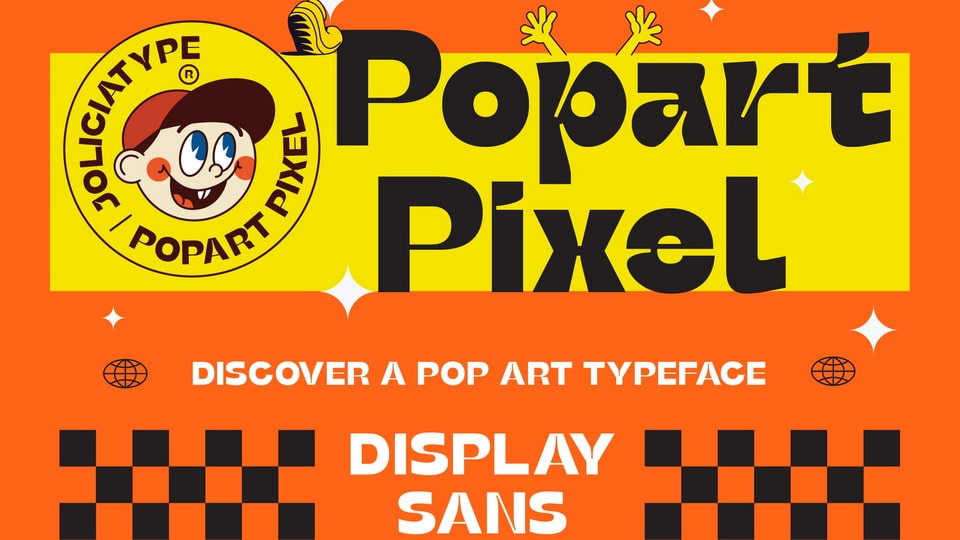
Download Popart Pixel font, a bold sans serif typeface designed with striking thickness and large inktraps, giving it a unique and recognizable character.